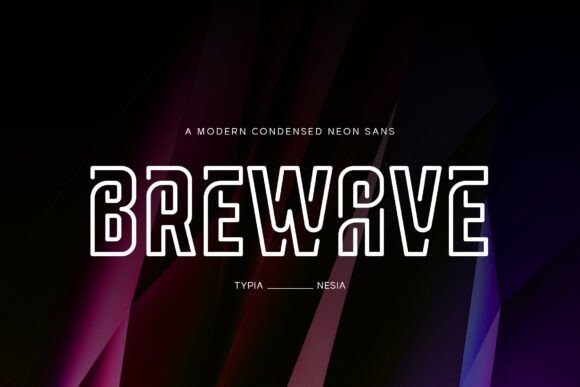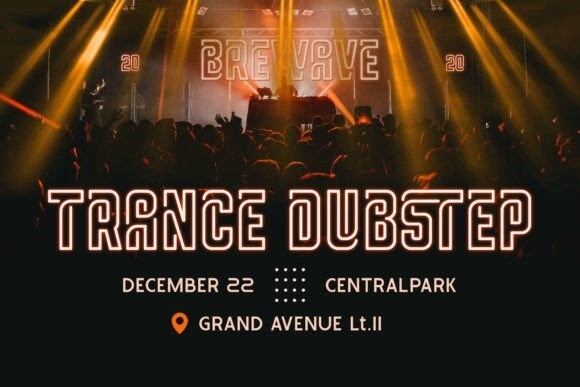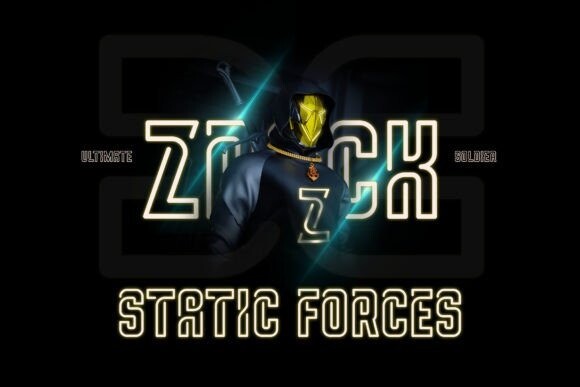
Brewave Font
Brewave – Techno Scifi Neon Condensed Outline Sans – Retro Cafe Neon Sign Display Font
Brewave Neon Display Font is perfect for your up coming projects. Such as logo branding, editorial design, stationery design, sport design, 80s retro design, game industry, music poster, blog design, modern advertising design, card invitation, art quote, home decor, book/cover title, special events and any more.